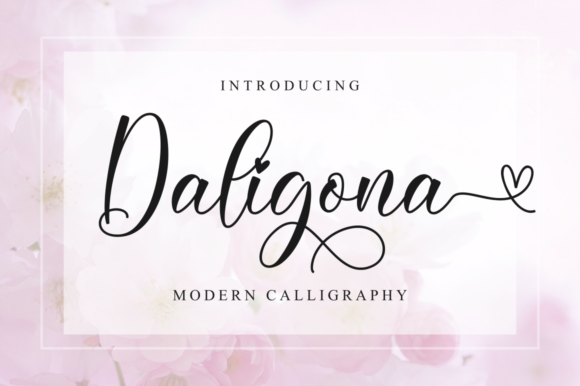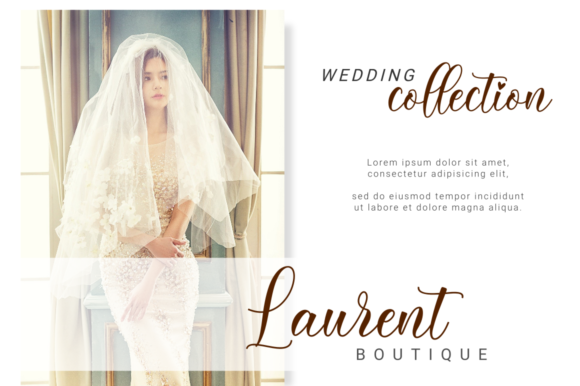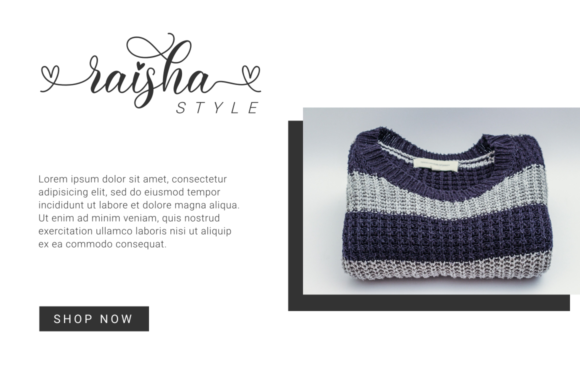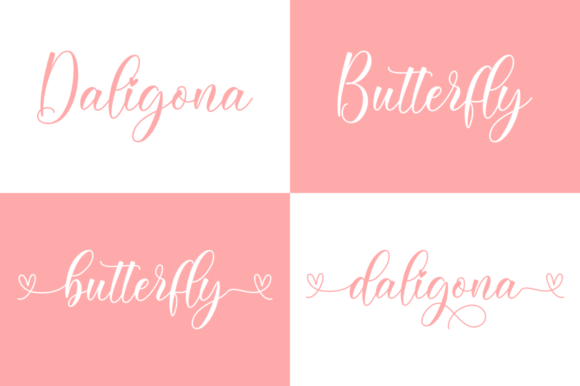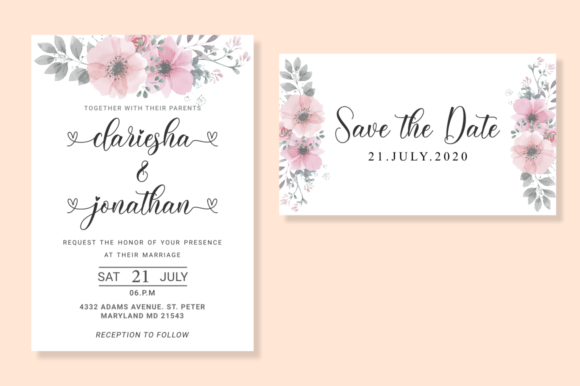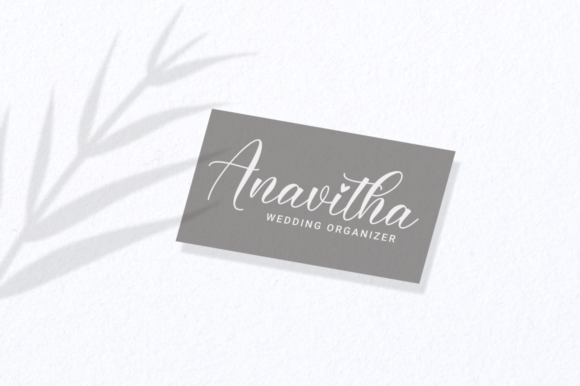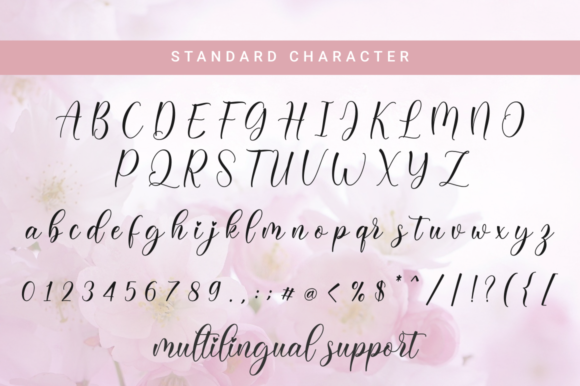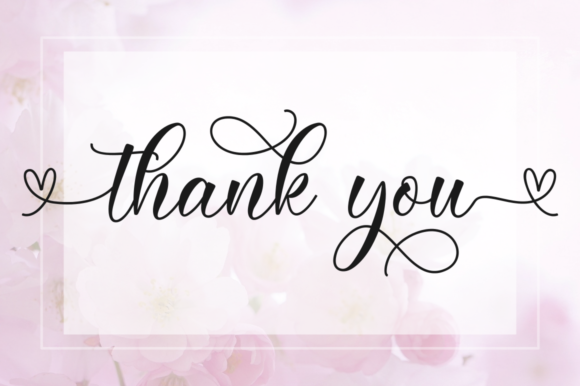
Daligona Font
About Daligona Font
Daligona is a sweet and modern calligraphy font. It is PUA encoded which means you can access all of the glyphs and swashes with ease! It features a varying baseline, smooth lines, gorgeous glyphs and stunning alternates. Daligona will turn any creative idea into a true piece of art!